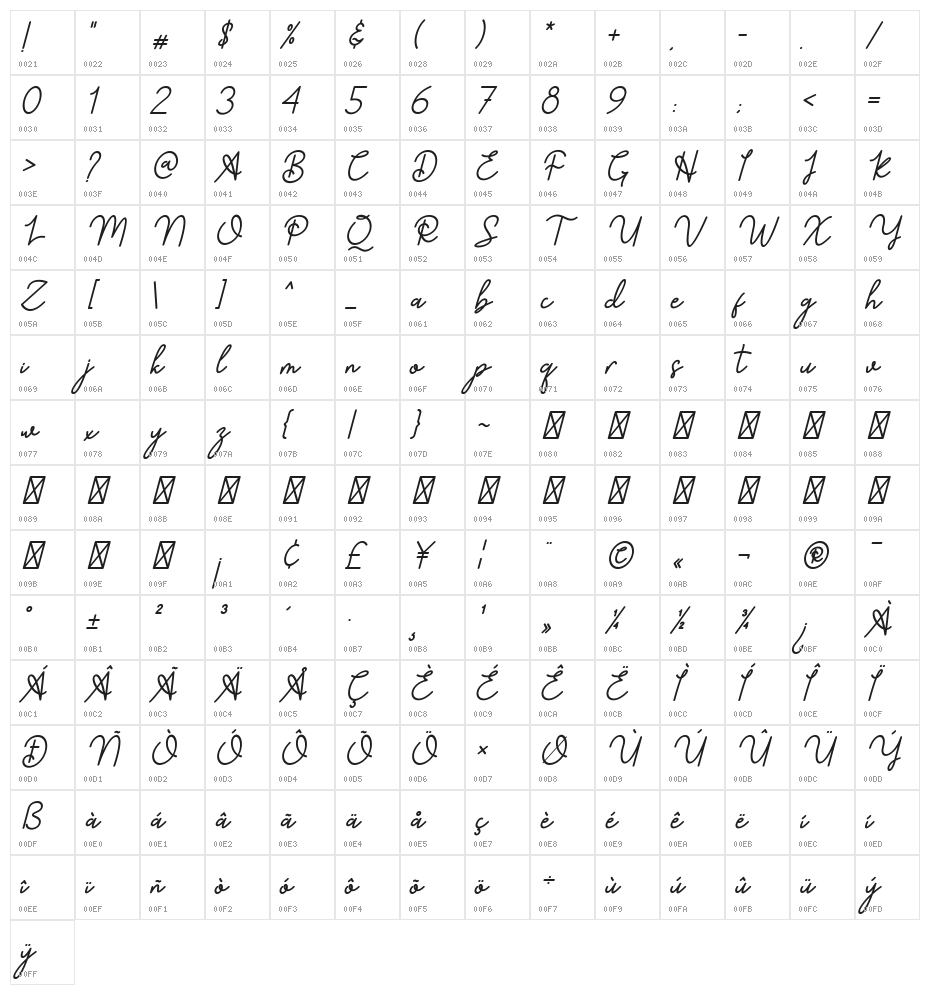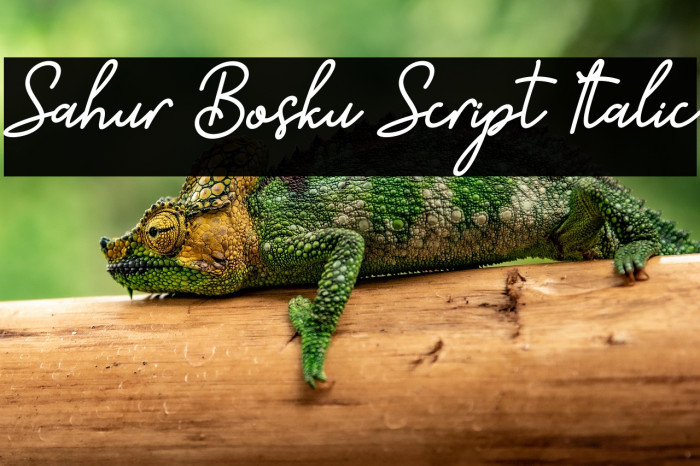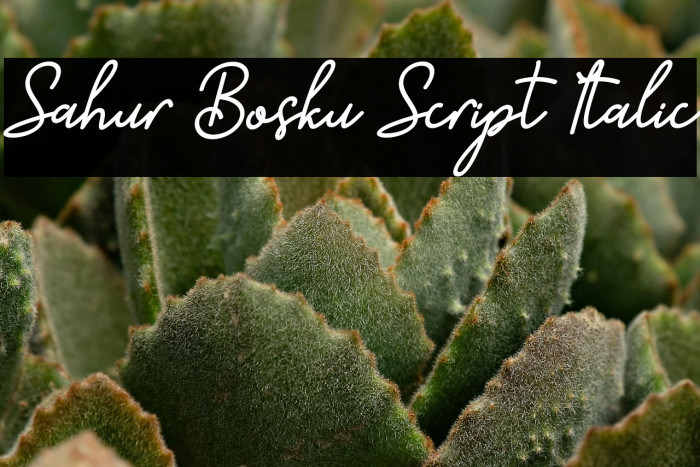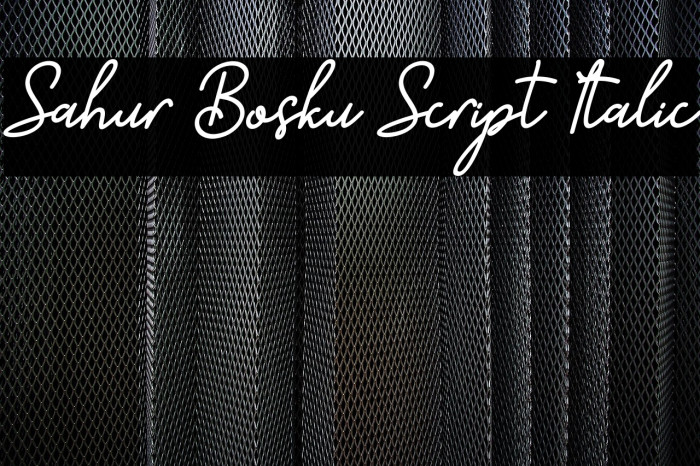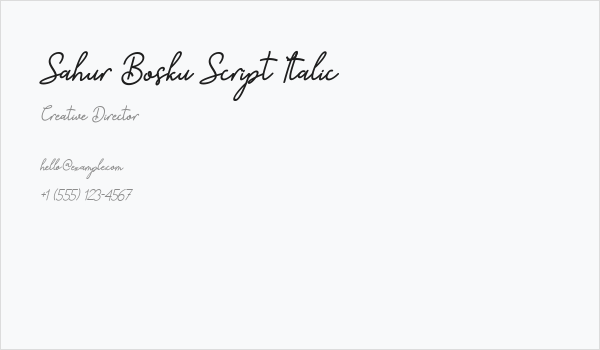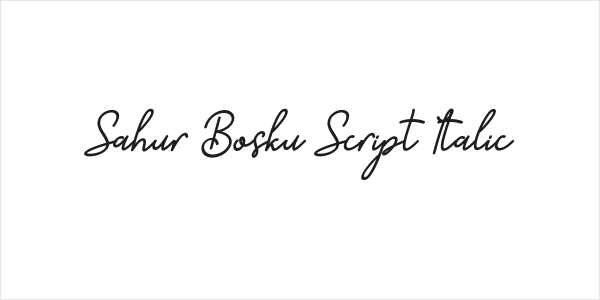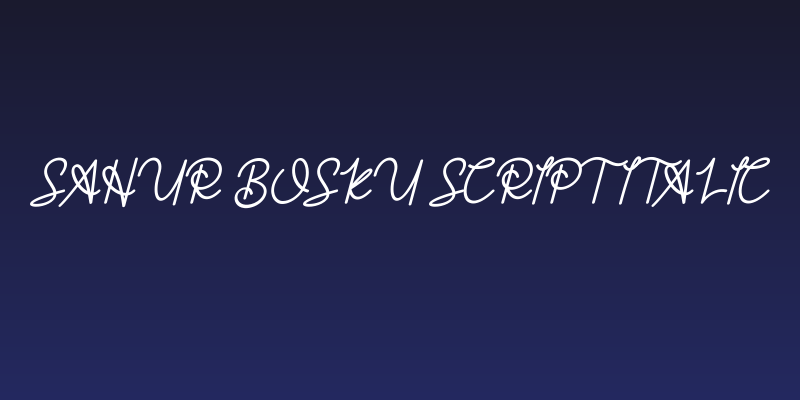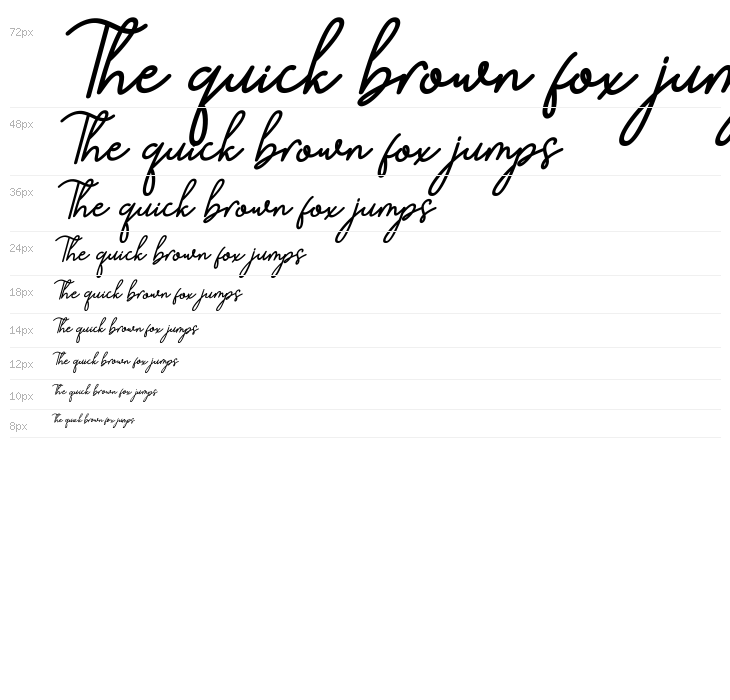
Sahur Bosku Script Italic Font
Sahur Bosku Script Italic Description
This font features a flowing, cursive style with elegant, sweeping strokes that give it a handwritten appearance. The letters are connected, creating a seamless and fluid look that is both sophisticated and approachable. The uppercase characters maintain a consistent height, while the lowercase letters exhibit a slight slant, enhancing the script's dynamic nature. The numerals and special characters are designed to complement the alphabet, maintaining the same graceful curves and fluidity. This font's overall aesthetic is both artistic and legible, making it suitable for a variety of creative applications.